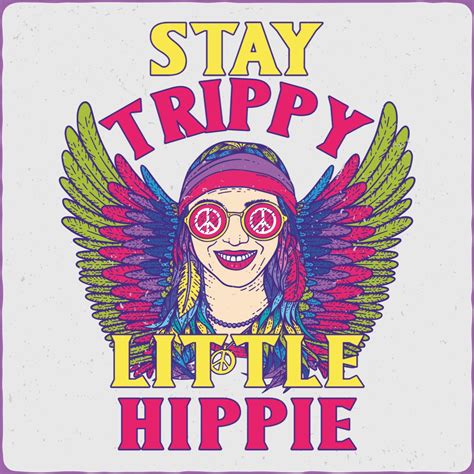
Psychedelic Font Designs In Adobe Illustrator
Psychedelic Font Designs in Adobe Illustrator
Hey guys, ever wanted to create some seriously groovy, mind-bending text that screams 60s and 70s vibes? Well, you’ve come to the right place! We’re diving deep into the awesome world of psychedelic font design using Adobe Illustrator . This isn’t just about slapping some wavy lines on a letter; it’s about capturing an entire era’s aesthetic and translating it into killer typography. Whether you’re designing a poster for a music festival, a t-shirt for a retro-themed party, or just want to spice up your personal projects, mastering psychedelic fonts in Illustrator is a superpower you’ll definitely want in your toolkit. We’ll explore the core elements that make a font look psychedelic, how to achieve those iconic effects, and some handy tips and tricks to make your creations truly stand out. So grab your Illustrator software, get ready to unleash your creativity, and let’s make some text that’s out of this world!
Understanding the Psychedelic Aesthetic
Alright, so what exactly makes a font psychedelic ? It’s more than just random squiggles, guys. The psychedelic font aesthetic is deeply rooted in the counterculture movements of the 1960s and 70s. Think vibrant, swirling patterns, bold colors, distorted shapes, and a general sense of visual overload that mirrors the altered states of consciousness associated with the era. When we talk about psychedelic fonts, we’re usually referring to styles that are highly decorative, fluid, and often illegible at first glance , demanding the viewer’s attention. These fonts often feature thick, rounded strokes, exaggerated curves, and a sense of movement, as if the letters themselves are melting, breathing, or dancing. Common motifs include floral elements, paisley patterns, abstract swirls, and optical illusions. The goal was to create visuals that were as immersive and thought-provoking as the music and experiences they represented. Adobe Illustrator is the perfect playground for this kind of experimentation because its vector-based nature allows for clean lines, easy manipulation of shapes, and scalable designs. We can stretch, warp, twist, and colorize our text in ways that would be a nightmare in raster-based programs. So, before we jump into Illustrator, let’s really internalize what we’re aiming for: fluidity, vibrancy, distortion, and a touch of the surreal . Keep these elements in mind as we start building our own groovy type!
Crafting Your Psychedelic Font Base
First things first, we need a solid foundation for our psychedelic masterpiece. You can’t just jump into the wavy effects without a good starting point. For your psychedelic font base in Adobe Illustrator , you have a few options. You could start with a standard font that has a relatively bold or rounded style – think something like Cooper Black, Hobo, or even a simple sans-serif like Arial Black if you plan on heavily altering it. Alternatively, you could dive straight into creating custom letterforms from scratch using Illustrator’s powerful drawing tools, like the Pen Tool or the Shape Tools. This gives you maximum control over the curves and thickness of your letters, allowing you to really lean into the organic, flowing nature of psychedelic design. If you’re going custom, remember the key characteristics: thick, consistent strokes , and smooth, rounded terminals . Avoid sharp serifs or overly condensed styles at this stage. The beauty of vector graphics is that you can always adjust these later. Once you have your basic letterforms, whether they’re from a pre-existing font or custom-made, the next step is often to outline them. Select your text, go to Type > Create Outlines (or Shift + Ctrl + O / Shift + Cmd + O ). This converts your editable text into actual vector paths, which is crucial for applying the more complex distortions and effects we’ll be using. Treat each letter as a shape you can now manipulate, cut, and reshape to your heart’s content. Don’t be afraid to experiment with different base styles before committing. Sometimes, a slightly different starting font can lead to a vastly different and more interesting psychedelic outcome. The goal here is to create letterforms that are inherently playful and ready to be warped into mind-bending shapes.
Applying Wavy and Distorted Effects
Now for the fun part, guys! This is where we bring those letters to life and give them that signature psychedelic swirl. Adobe Illustrator offers a suite of tools perfect for applying wavy and distorted effects to your fonts . The most popular and effective way to achieve that classic psychedelic look is by using the Warp Tools . You can find these under the Effect > Warp menu. Options like Arc , Arch Upper , Flag , Fish , and Wave are your best friends here. Wave is particularly potent for that undulating, liquid-like appearance. Play around with the sliders for Bend and Distort to get just the right amount of curvature and intensity. Remember, you can apply these effects non-destructively by going to Effect > Warp and choosing your desired distortion, or you can apply them directly to the outlined text paths. For even more organic and freeform distortion, the Liquify Tools (accessed via Effect > Distort & Transform > Pucker & Bloat , Twist , Free Distort ) are incredibly powerful. You can use these to create bulges, twists, and thinning effects that mimic hand-drawn, melted lettering. Another fantastic technique is using the Blend Tool ( Object > Blend > Make ). You can create multiple copies of a letter, distort each copy differently, and then blend them together to create a smooth transition between states, resulting in a fascinating, evolving letterform. Don’t forget about the Pathfinder panel ( Window > Pathfinder ) for more intricate manipulation. You can use it to unite shapes, subtract parts, or create complex overlaps that add depth and visual interest. The key is to layer these effects, experiment with different settings, and not be afraid to combine multiple warp techniques. The goal is to make your letters look like they’re in constant motion, flowing and morphing in unexpected ways. Embrace the chaos , but guide it with intention!
Adding Vibrant Colors and Gradients
Psychedelic art is synonymous with vibrant colors and mind-bending gradients , and your text should be no exception! Once you’ve got your letters all warped and swirled, it’s time to inject some serious color. Illustrator’s Gradient Tool is your absolute best friend here. You can create radial, linear, or freeform gradients to give your letters a luminous, almost iridescent quality. Think bold, contrasting color combinations: electric blues fading into fiery oranges, hot pinks melting into sunshine yellows, or deep purples swirling into vibrant greens. The trick to a truly psychedelic gradient is often to use three or more colors and ensure smooth transitions. Experiment with applying gradients both along the stroke and the fill of your outlined text. For extra depth, consider adding multiple gradient fills or strokes, each with different color blends and opacities. Don’t shy away from neon colors and iridescent effects . You can simulate these using specific color combinations and blending modes. Also, consider using Color Groups ( Window > Color Groups ) to easily manage and apply harmonious yet contrasting color palettes. Sometimes, adding a subtle texture overlay, like a halftone pattern or a distressed noise effect, can further enhance the retro feel. Look for ways to make your colors pop and create a visual energy that matches the distorted forms of your letters. Color is emotion , and in psychedelic design, it’s about evoking a feeling of excitement, wonder, and maybe a little bit of sensory overload. Play with the opacity of your colors and gradients too; transparency can create some really cool layering effects.
Incorporating Retro Patterns and Textures
To really nail that authentic 1960s and 70s vibe, we need to talk about incorporating retro patterns and textures into your psychedelic font designs. This is where you can add another layer of visual richness and historical accuracy. Think paisley, groovy floral motifs, swirling mandalas, or even geometric patterns that were popular during the psychedelic era. You can create these patterns yourself using Illustrator’s drawing tools and repeat features, or you can find royalty-free vector pattern packs online. Once you have a pattern, you can apply it to your text in a few ways. The most common is by creating a pattern swatch ( Window > Swatches , then drag your pattern into the panel). You can then apply this swatch as a fill to your outlined text. For more control, you can use Clipping Masks ( Object > Clipping Mask > Make ). Place your pattern layer above your text layer, select both, and create a clipping mask. This confines the pattern strictly within the boundaries of your letters. Another awesome technique is to use Appearance Panel ( Window > Appearance ) to add multiple fills and strokes, allowing you to layer solid colors, gradients, and pattern fills on the same text object. For textures, consider adding subtle noise or grain effects ( Effect > Texture > Grain or Effect > Sketch > Graphic Pen ) to give your design a slightly worn, printed feel, much like old posters and album covers. You can also use images or scanned textures as inspiration or even incorporate them using clipping masks. Remember, the goal is to complement, not overwhelm , your warped letterforms. The patterns and textures should enhance the psychedelic feel without making the text completely unreadable. Subtlety is key sometimes, while other times, going bold with a loud pattern is exactly what the design calls for. Experiment to find the right balance for your specific project.
Advanced Psychedelic Font Techniques
Ready to take your groovy creations to the next level, guys? We’ve covered the basics, but advanced psychedelic font techniques in Adobe Illustrator can really make your work pop and give it that professional, mind-bending edge. Let’s dive into some more sophisticated methods that will set your designs apart. We’re talking about creating depth, adding intricate details, and really pushing the boundaries of what typography can do. Prepare to get a little experimental, because this is where the real magic happens!
Creating Depth and Dimension
To make your psychedelic fonts truly leap off the screen, we need to give them depth and dimension . Flat text, no matter how cool the effects, can sometimes lack impact. Illustrator offers several ways to achieve this illusion. One powerful method is using multiple strokes and fills . With your outlined text selected, open the Appearance panel ( Window > Appearance ). Here, you can add multiple strokes and fills to a single text object. Apply a thick, dark stroke behind a vibrant gradient fill, and then add another thin, bright stroke on top. This layering creates a sense of a raised or extruded effect. Another fantastic technique is leveraging shadows and highlights . Use Effect > Stylize > Drop Shadow to add a subtle shadow, but don’t stop there. You can apply multiple drop shadows with different offsets, blurs, and colors to create a more complex, almost volumetric look. For true 3D-like effects without the complexity of 3D software, consider using the Extrude & Bevel effect ( Effect > 3D > Extrude & Bevel ). While it can sometimes look a bit rigid, with careful adjustment of the angle, depth, and shading, you can achieve a convincing pseudo-3D effect that adds significant weight to your letters. Blend this with your warped shapes for truly unique results. Finally, layering and opacity play a huge role. Duplicate your warped text layers and offset them slightly, then reduce the opacity of the duplicated layers to create a ghostly echo or a subtle shadow effect. Experiment with blending modes like ‘Multiply’ or ‘Overlay’ on these duplicated layers to interact with the colors underneath. The goal is to make your letters feel like they occupy real space, adding a tangible quality to your otherwise fluid and distorted designs. Think about light sources and how they would realistically hit a 3D object, even if it’s just an illusion created with 2D tools.
Simulating Hand-Drawn Imperfections
While Illustrator excels at clean vector lines, the best psychedelic art often has a slightly raw, imperfect, hand-drawn feel. Simulating hand-drawn imperfections in your fonts can add a lot of character and authenticity. One of the easiest ways to achieve this is by using the Pucker & Bloat and Twist tools from the Effect > Distort & Transform menu repeatedly and with varying intensity. This can create wobbly lines and uneven shapes that mimic hand-drawn strokes. Another effective method is using the Artistic Brushes or Calligraphic Brushes ( Window > Brushes ). You can find or create brushes that have a textured or uneven edge. Apply these brushes to the paths of your outlined letters. For a truly organic feel, try using a Wacom tablet or drawing stylus if you have one. Draw the wavy elements or even the base letterforms directly onto your tablet. The natural pressure sensitivity and fluidity of drawing by hand can produce results that are hard to replicate with just mouse clicks. If you don’t have a tablet, you can scan hand-drawn elements (like rough letter sketches or texture scraps) and import them into Illustrator, then use them as a basis for tracing with the Pen Tool or even as part of a clipping mask. Don’t be afraid to add small, intentional